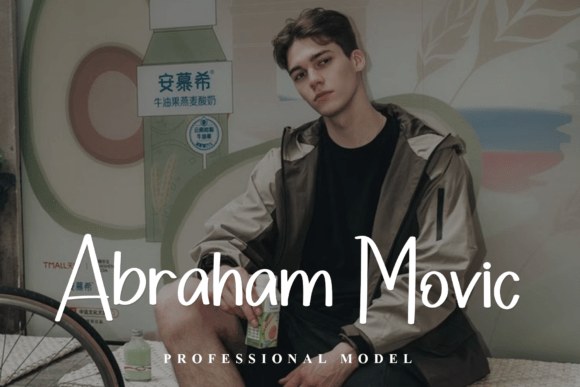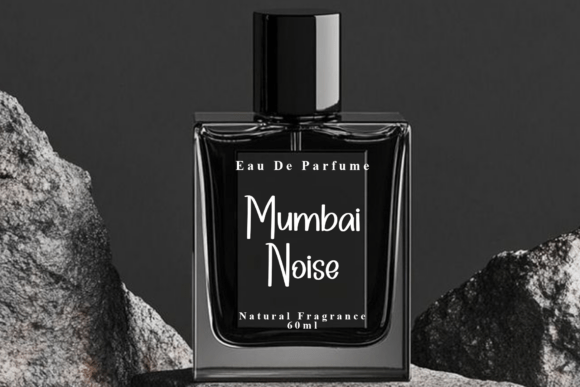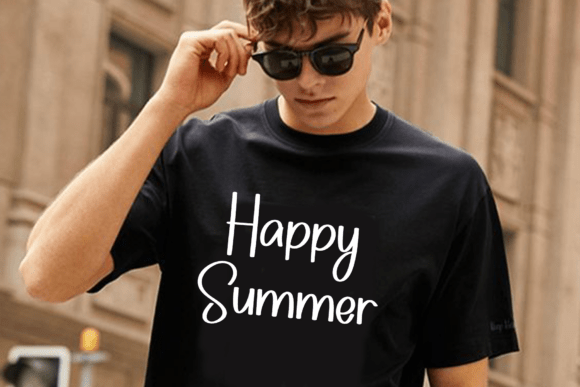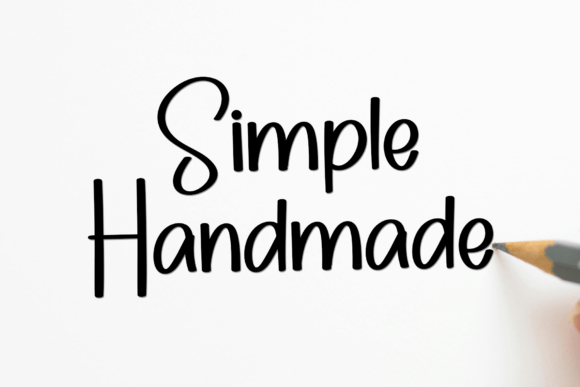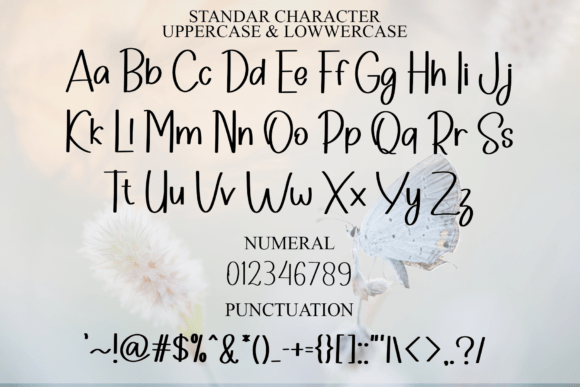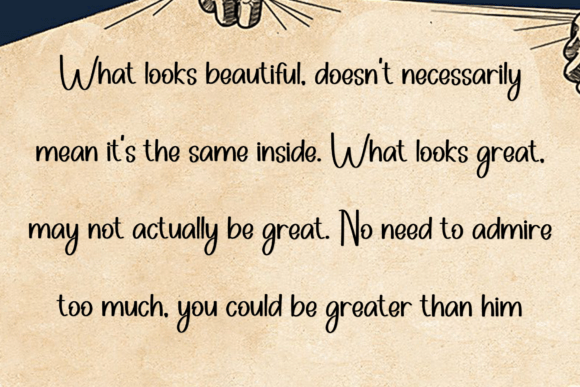
Introducing Glow Partner Font: The Ultimate Holiday Typeface
The holiday season is upon us, and what better way to get into the spirit than with a festive and merry typeface? Look no further than Glow Partner Font, a decorative and whimsical font that’s perfect for adding a touch of enchantment to your designs. In this article, we’ll dive into the world of Glow Partner Font and explore its features, benefits, and uses.
Glow Partner Font is a carefully crafted typeface that’s designed to capture the magic of the holiday season. Its decorative elements and whimsical flair make it the perfect choice for greeting cards, gift tags, and holiday-themed projects. With Glow Partner Font, you can add a cheerful and nostalgic ambiance to your words, making your designs truly special.
Whether you’re a designer, crafter, or DIY enthusiast, Glow Partner Font is the perfect addition to your toolkit. Its versatility and ease of use make it suitable for a wide range of projects, from digital designs to handmade crafts. With Glow Partner Font, you can create stunning holiday-themed designs that are sure to impress.
One of the standout features of Glow Partner Font is its PUA (Private Use Area) encoding. This means that you can access all of the amazing glyphs and ligatures with ease, giving you complete creative control over your designs. With PUA encoding, you can unlock the full potential of Glow Partner Font and take your designs to the next level.
What You Can Create with Glow Partner Font
The possibilities are endless with Glow Partner Font. Here are just a few ideas to get you started:
- Greeting cards: Create stunning holiday greeting cards that are sure to impress your friends and family.
- Gift tags: Add a personal touch to your gifts with custom gift tags made using Glow Partner Font.
- Holiday-themed projects: From invitations to party decorations, Glow Partner Font is the perfect choice for any holiday-themed project.
- Digital designs: Use Glow Partner Font to create stunning digital designs, such as social media graphics, blog posts, and more.
Why Choose Glow Partner Font?
So why choose Glow Partner Font over other typefaces? Here are just a few reasons:
- Unique and festive design: Glow Partner Font is unlike any other typeface on the market. Its unique and festive design is sure to make your designs stand out.
- Easy to use: With PUA encoding, Glow Partner Font is easy to use and accessible to designers of all levels.
- Versatile: Glow Partner Font is suitable for a wide range of projects, from digital designs to handmade crafts.
In conclusion, Glow Partner Font is the ultimate holiday typeface for designers and crafters. Its festive and merry design, combined with its ease of use and versatility, make it the perfect choice for any holiday-themed project. Whether you’re looking to create stunning greeting cards, gift tags, or digital designs, Glow Partner Font is sure to bring a touch of magic to your words. So why wait? Get your hands on Glow Partner Font today and let your typography shine with the magic of Beautiful Font!
- Festive and merry typeface
- Decorative elements and whimsical flair
- Perfect for greeting cards, gift tags, and holiday-themed projects
- Suitable for digital designs and handmade crafts
- Unique and versatile design